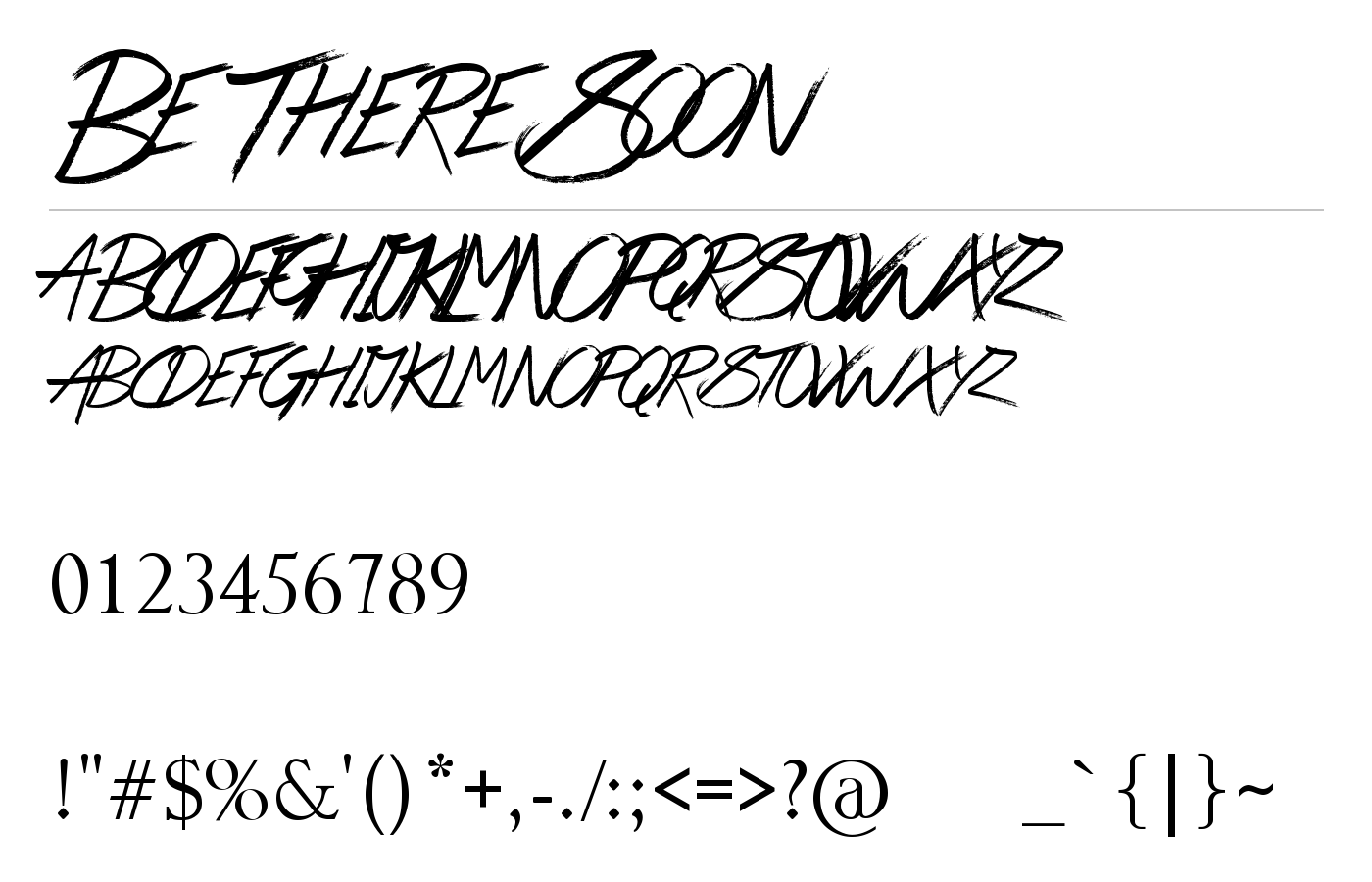
Be There Soon is a dynamic, handwritten script font characterized by its energetic, brush-like strokes and a slightly rough texture that adds a sense of urgency and personality. Its sharp, irregular lines and tall, narrow letterforms create a bold, expressive style perfect for eye-catching headlines, branding, or creative projects that need an informal, artistic touch. This font works well in designs that aim to convey spontaneity, individuality, and a spirited vibe.
Be There Soon Font
About Be There Soon Font